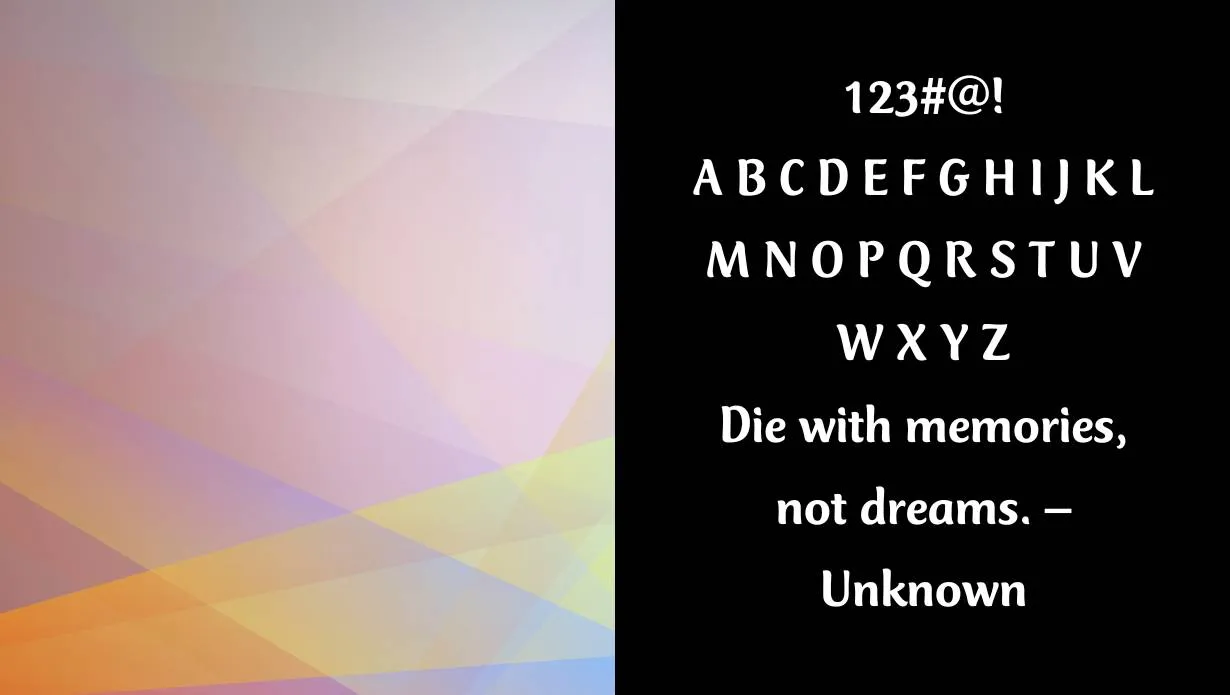
The Club Type font is the pulse of the nightlife scene when it comes to letters. Its bold and lively design makes it ideal for creating eye-catching club logos, dynamic event posters, or injecting some excitement into your branding.
This font has a heavy weight and slightly expanded width, ensuring your words pulse with a sense of energy. Picture using the Club Type font for a dance party invitation, turning your text into a beat that moves.
| Name | Club Type Font |
| Designer | Adrian Williams |